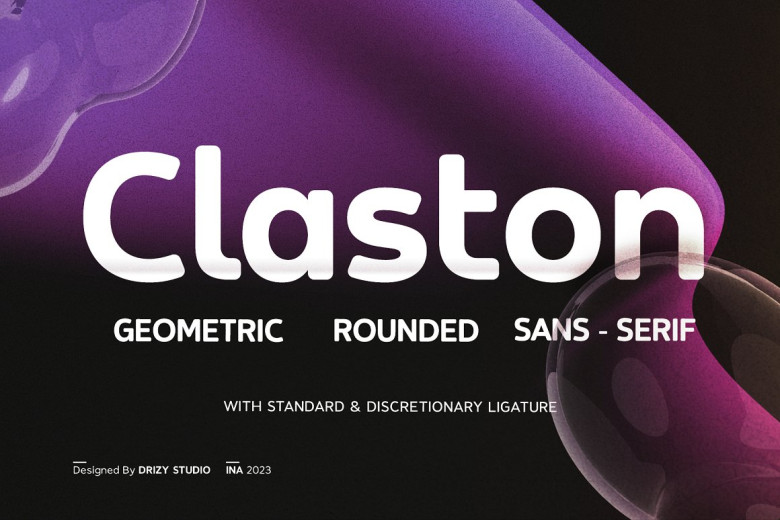
Claston Font
Claston is an attractive geometric rounded font designed with all of the styles needed to complete your projects. Garmot offers uppercase and lowercase punctuation, numerals, multilingual support, alternates Ligatures to complete its look.
Claston Geometric Rounded Sans Font